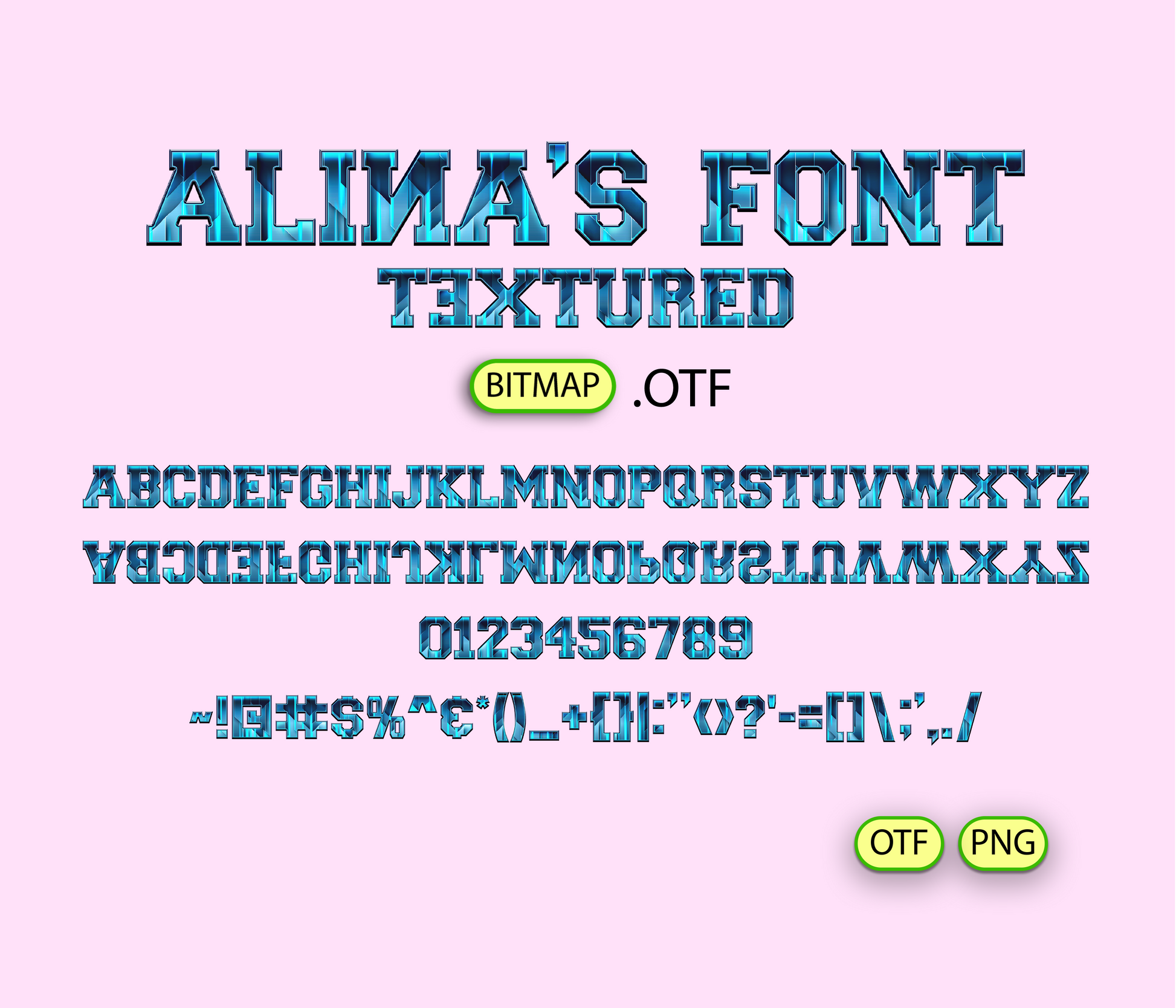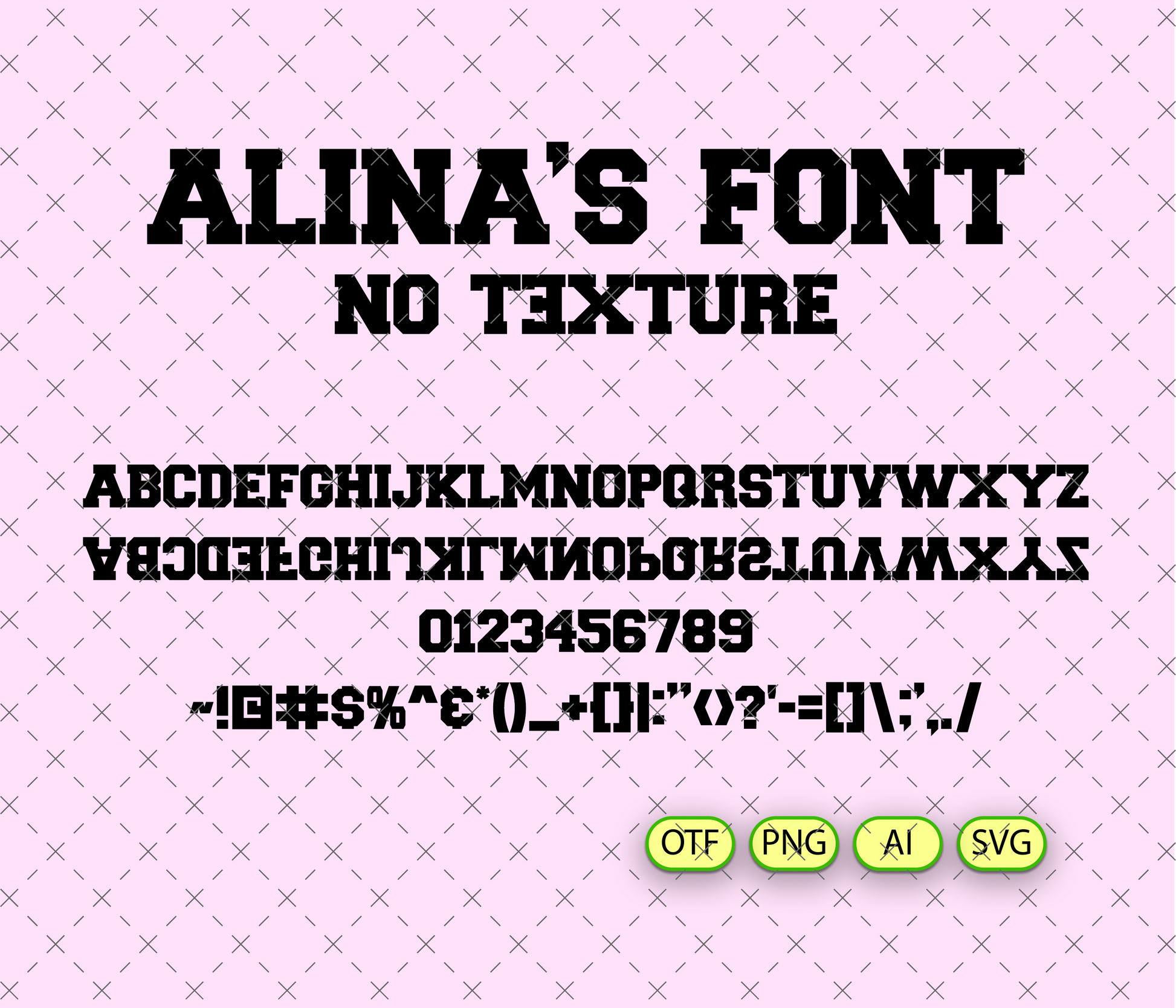
Inverted Reality Font Textured
Step into the disorienting world of flipped perspectives with our Inverted Reality Font Textured, capturing the essence of topsy-turvy dimensions and gravity-defying design. Perfect for experimental artists, themed event planners, content creators, and creative professionals, this font brings the bold, unconventional spirit of reversed orientation stories to your projects. Create eye-catching invitations, merchandise, or digital content with the dramatic energy of upside-down visual narratives.
Bold Typography for Experimental Design & Artistic Projects
Our Inverted Reality Font Textured features dramatic, stylized letterforms with distressed textures reflecting the world of reversed perspectives and disorienting spatial settings.
Our font pays tribute to the world of experimental design principles and unconventional aesthetics, empowering your projects with its bold and disorienting spirit. Whether crafting artistic materials, designing avant-garde products, or adding an unconventional touch to personal projects, this font communicates the vibrant essence of reversed perspective entertainment. Ready to inject topsy-turvy intrigue into your creations? This font is your key to eye-catching, impactful design.